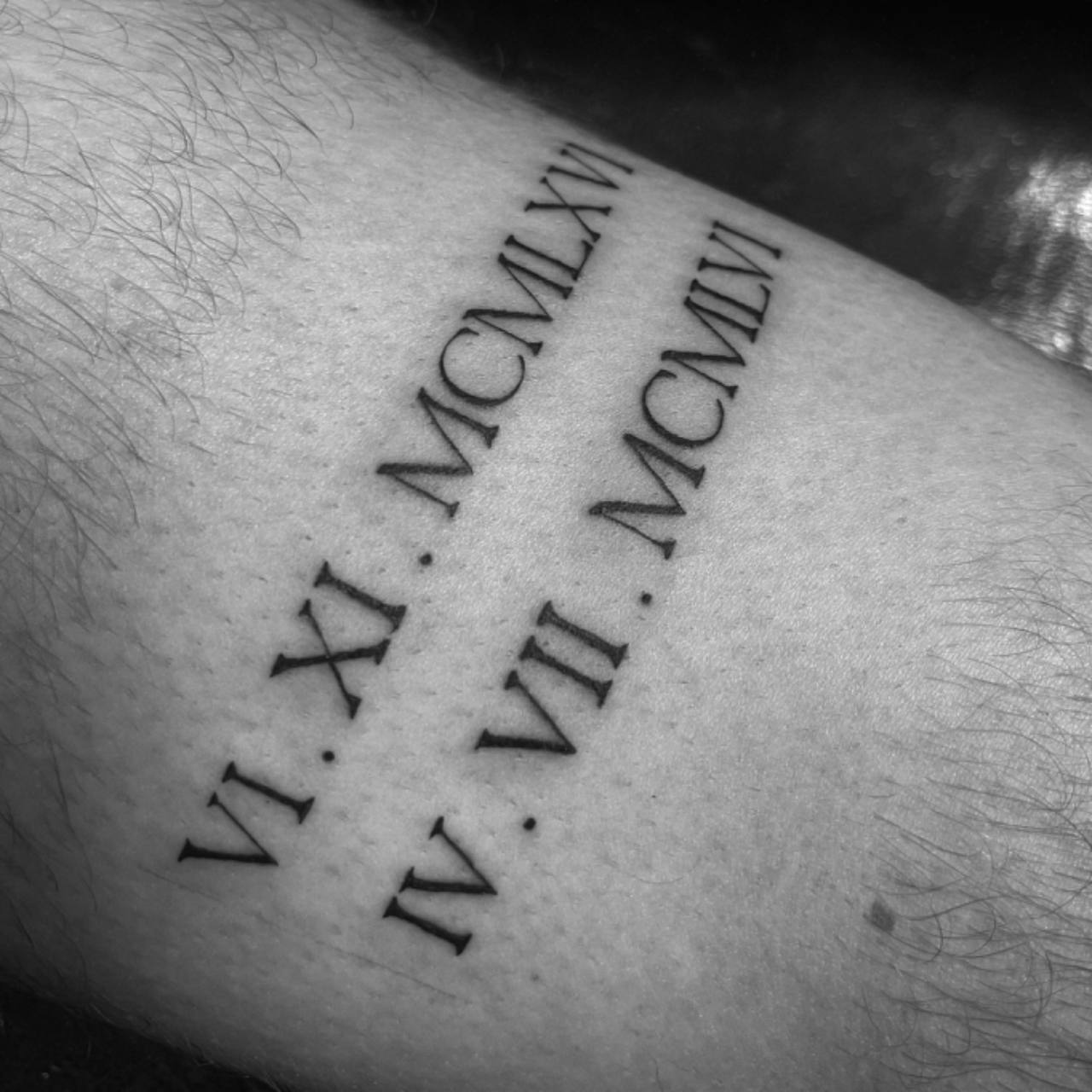
Choosing the right typeface is essential for any roman numerals tattoo. A good font for roman numerals tattoo balances readability with timeless elegance, ensuring the design stays crisp through the years.
From classic serif styles to modern minimalist scripts, the best fonts enhance the visual impact of each character, making your numerals a standout feature.
A well‑selected font not only brings meaning to your date or milestone, but also adds an artistic touch that fits seamlessly with your personal style.
Looking for a clean, elegant font that brings out the timeless charm of Roman numerals? This guide dives into the best typefaces for Roman numeral tattoos—perfect for marking special dates. Whether you’re going for classic or modern, the right font makes all the difference. A personalized Roman Numeral Date Tattoo Design (digital Download) lets you customize your ink with precision and style.
Choose a font that balances legibility and elegance—great for dates, birthdays, or anniversaries. A well-chosen typeface enhances the tattoo’s meaning and visual impact.
Simple, bold, and timeless—these fonts work beautifully with Roman numerals for a striking tattoo look.
When it comes to Roman numeral tattoo art, choosing the right font makes all the difference. A clean, elegant font enhances readability and adds timeless charm. Whether you’re going for classic or modern flair, the right font brings depth and meaning to your design. With careful selection, Roman Numeral Font Style Tattoo Ideas can truly shine and stand out on the skin.
Look for bold, crisp fonts that emphasize clarity and structure—ideal for a striking Roman numeral tattoo. Good font for roman numerals tattoo ensures both beauty and legibility over time.
Simple lines and balanced spacing create a powerful visual impact. A well-chosen font turns numbers into meaningful, artistic statements.
When it comes to Roman numeral tattoos, choosing the right font makes all the difference. A clean, bold style ensures clarity and elegance, especially for men who want timeless, classic designs. The best Roman Numeral Tattoos For Men often rely on sharp, well-proportioned fonts that stand out on skin. Whether you’re going for a subtle wrist piece or a bold chest design, the right font enhances both readability and visual impact. A good font for roman numerals tattoo ensures precision, balance, and a professional finish that ages gracefully.
Clear lines and strong structure define the best Roman numeral tattoos. A good font for roman numerals tattoo helps maintain symmetry and legibility, making it ideal for men who value classic aesthetics.
Think bold, clean, and timeless—these traits define the ideal font for Roman numerals on skin.
Looking for a clean, elegant font that stands out on skin? A great font for roman numerals tattoo ensures clarity, style, and timeless appeal. Whether you’re going for a minimalist look or a classic statement, choosing the right font makes all the difference. This is especially true when pairing with a Roman Numerals Temporary Tattoo Set to inspire your final design. Check out tattoo ideas with roman numerals for creative inspiration before committing to your choice.
A sharp, legible font brings focus and precision to your roman numerals tattoo, making it easy to read even from a distance. The right typeface enhances both aesthetics and readability on skin.
Think bold, classic, and clean—these traits define the best font for roman numerals tattoo. It’s not just about style; it’s about lasting impact.
Best Font for Roman Numerals Tattoo Design
Top Fonts for Roman Numeral Tattoos
Choosing the right font for Roman numerals in your tattoo can make all the difference—clarity, elegance, and visual impact matter. From classic serif styles to modern minimalist designs, the best font for Roman numerals tattoo ensures your numerals stand out without losing their timeless charm. Whether you’re going for a subtle wrist piece or a bold chest design, pairing the right font with your numerals elevates the whole look. This guide dives into proven styles and placements, helping you find the perfect balance between tradition and personal expression. Best Roman Numerals Tattoo Ideas You Should Check offers real-world examples and design tips to inspire your next project.
Font choice is key—clear, crisp, and proportional numerals look sharp on skin. A well-chosen typeface enhances readability and style, making your Roman numeral tattoo both meaningful and visually striking.
Simple lines and clean spacing give Roman numerals a timeless appeal. When paired with the right font, they become a powerful, elegant statement in any tattoo design.
In summary, the right font turns simple numerals into a powerful statement of heritage and style. Whether you opt for a bold serif or a sleek sans‑serif, choose a design that reflects your personality and withstands the test of time.